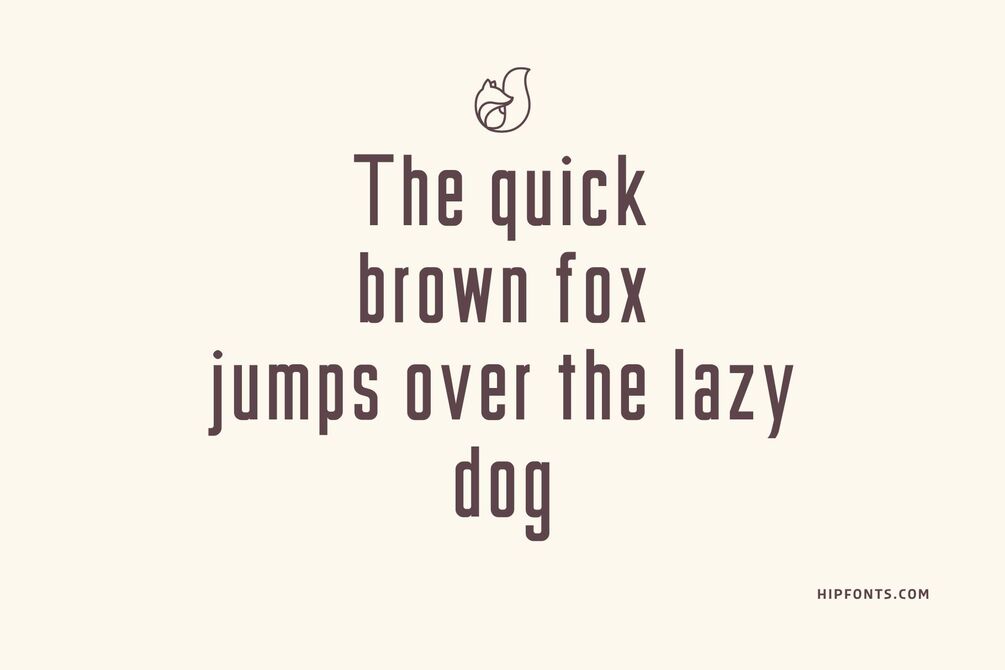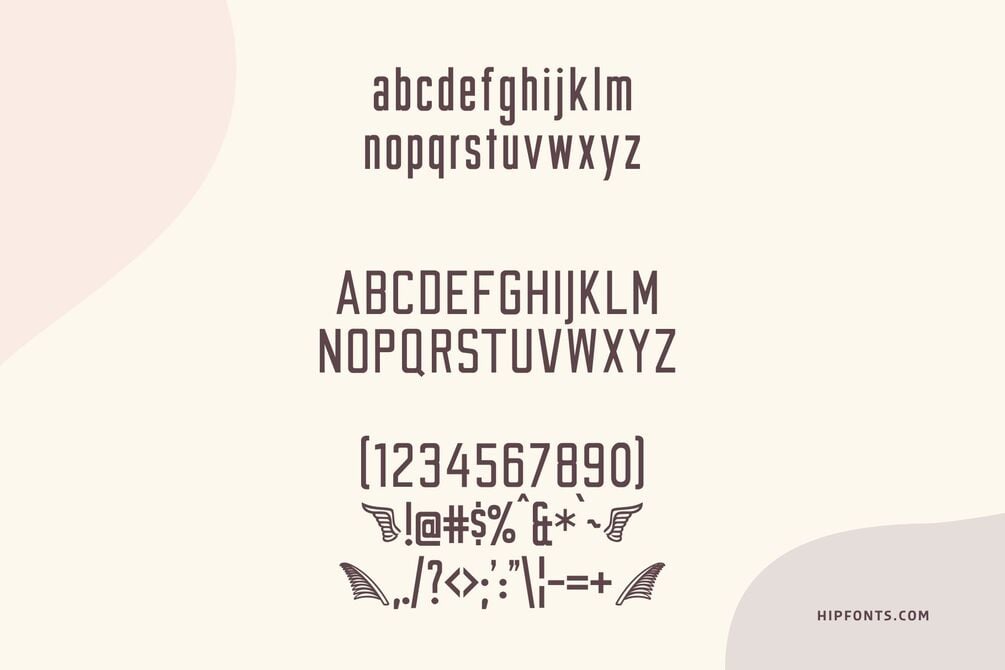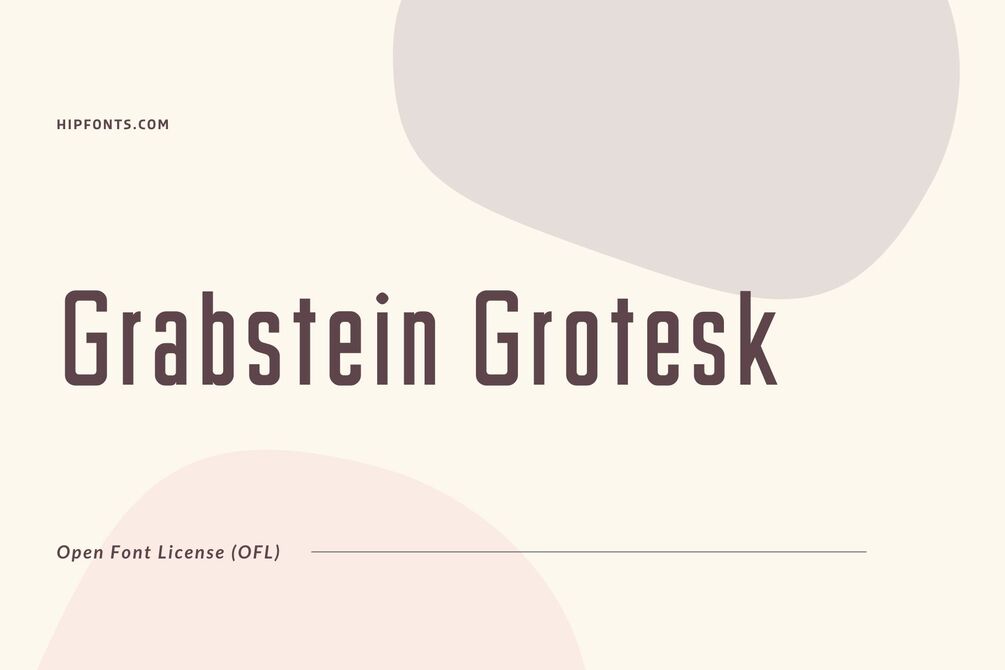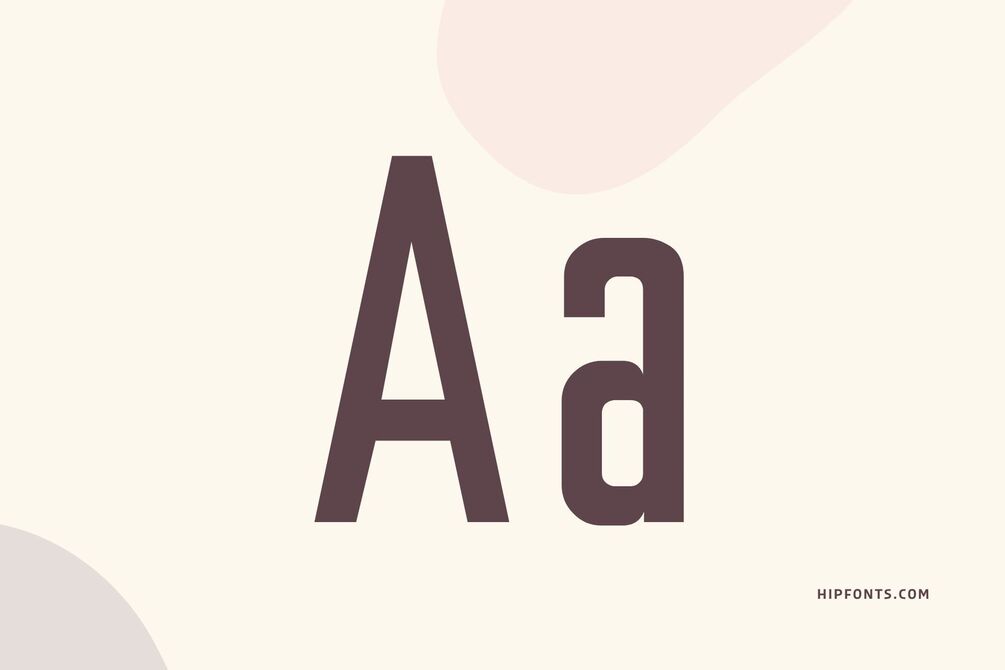
Grabstein Grotesk
Grabstein Grotesk is a bold and impactful font that embodies strength and power. Its strong vertical strokes and sharp angles create a sense of dynamism and energy.
Grabstein Grotesk is well-suited for designs that require a modern and edgy look. Whether used in posters, album covers, or urban-inspired branding, Grabstein Grotesk demands attention and makes a statement.
Its versatility allows it to adapt to various design styles, from contemporary to futuristic, providing designers with a typographic tool to convey their message with boldness and impact.